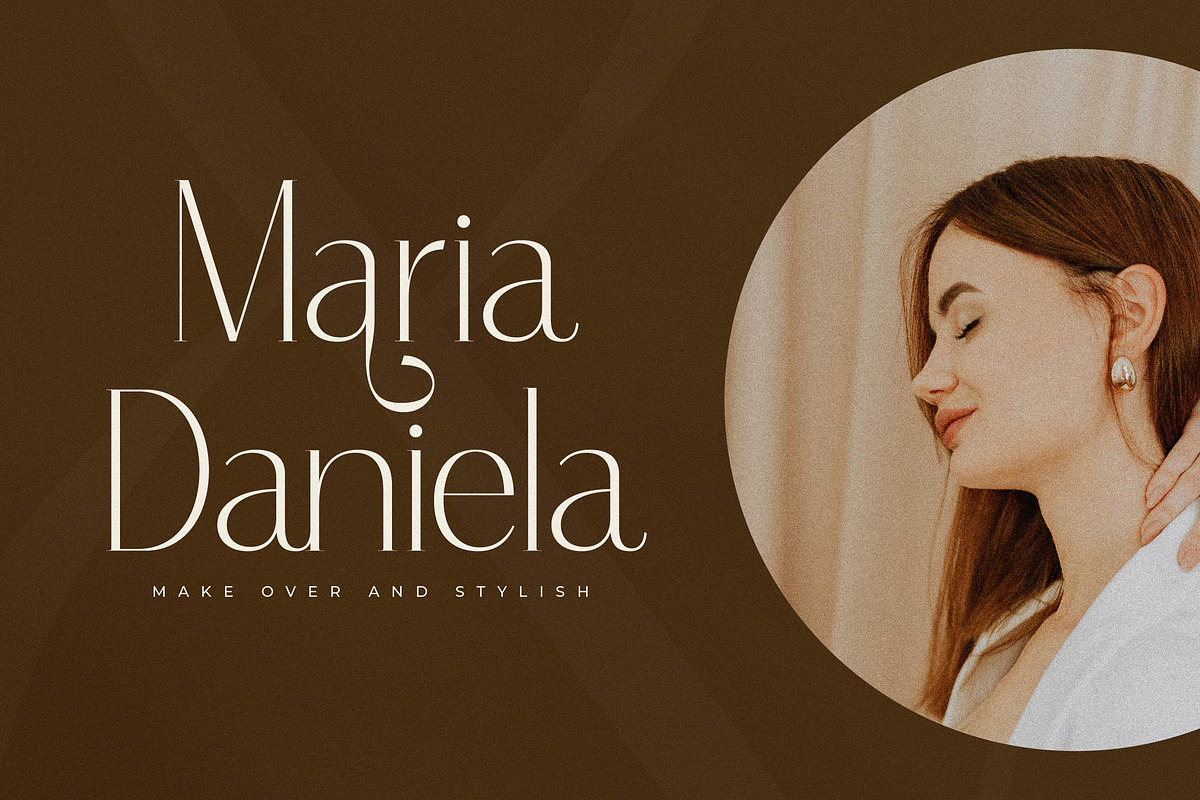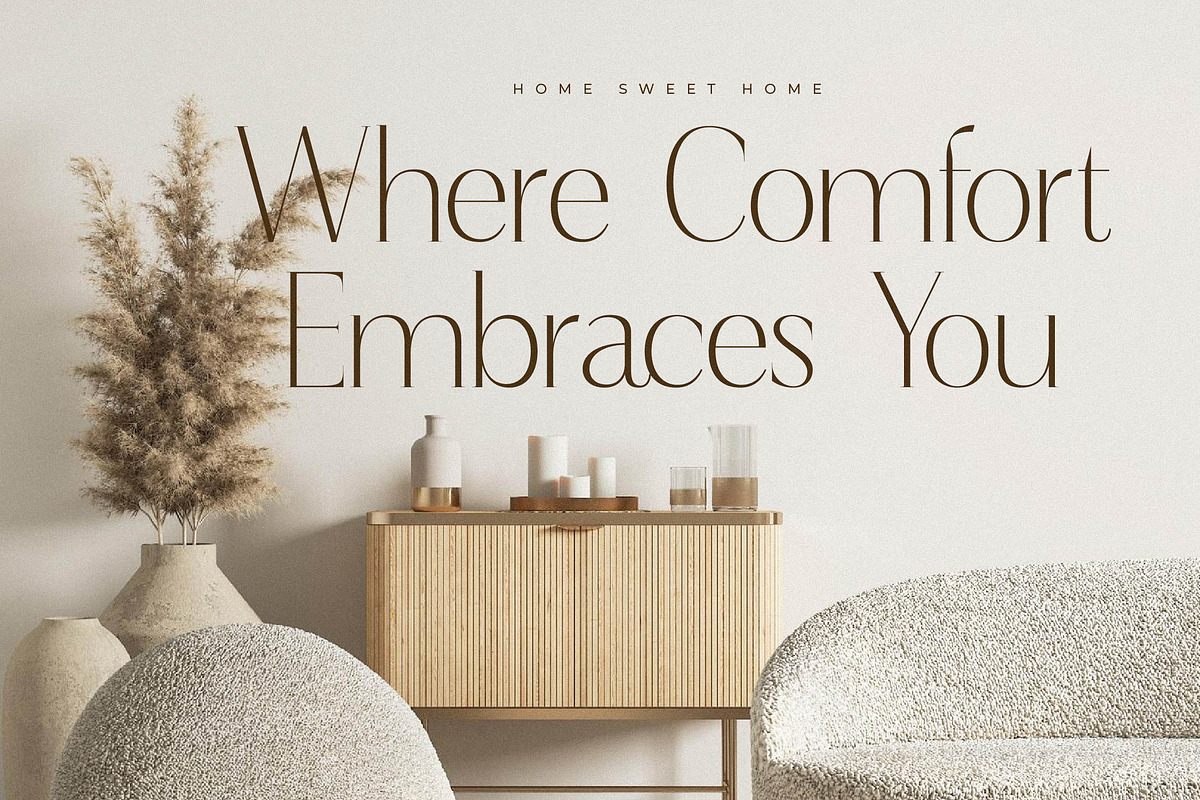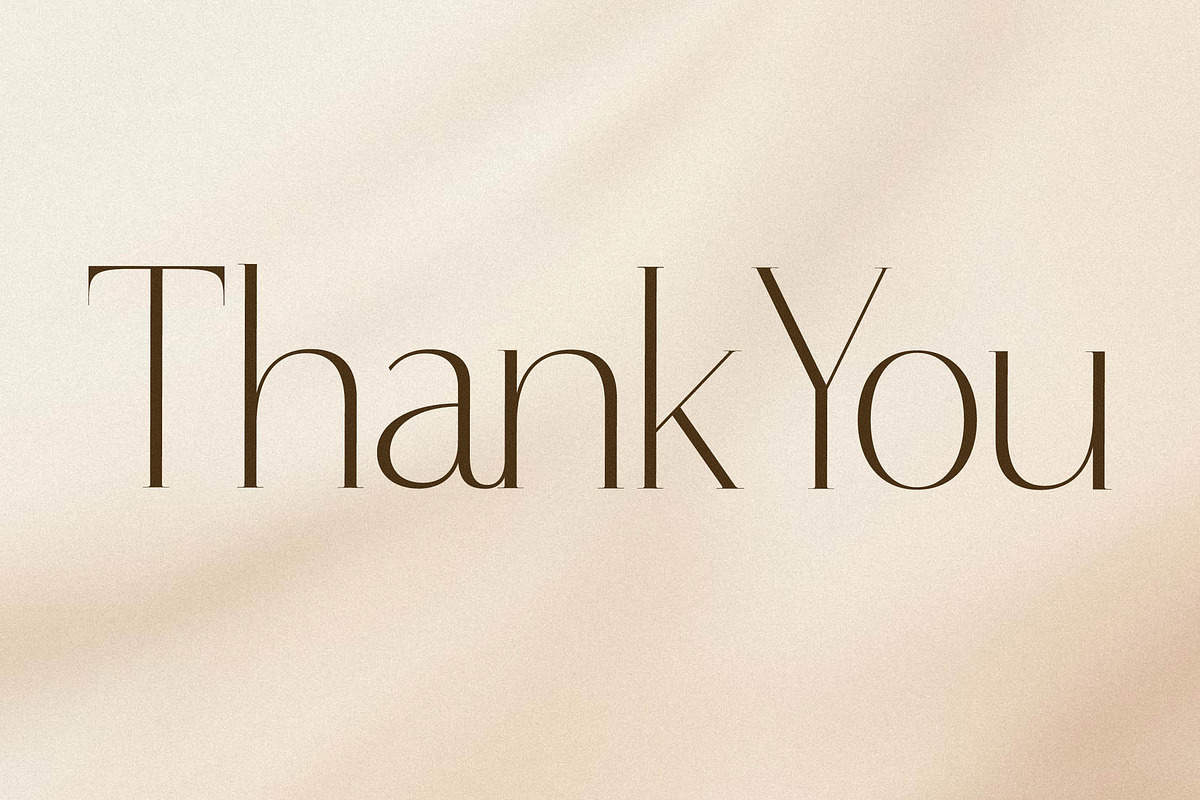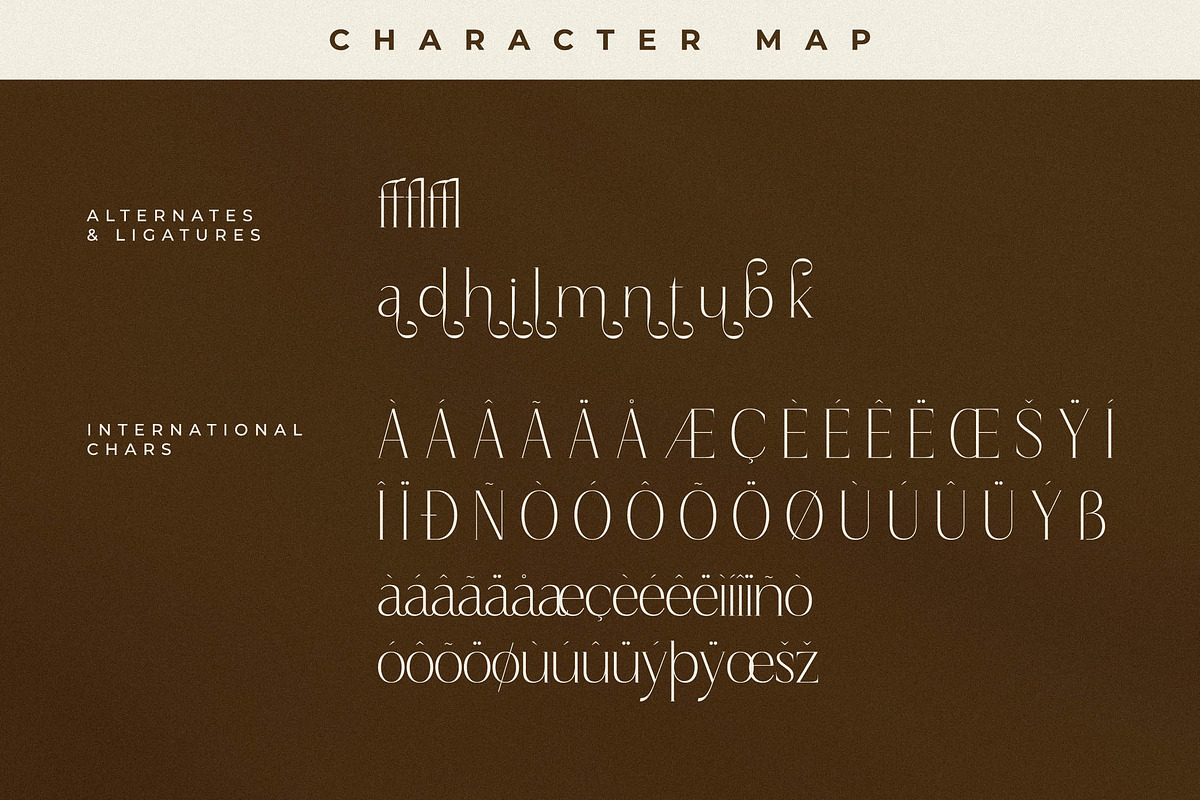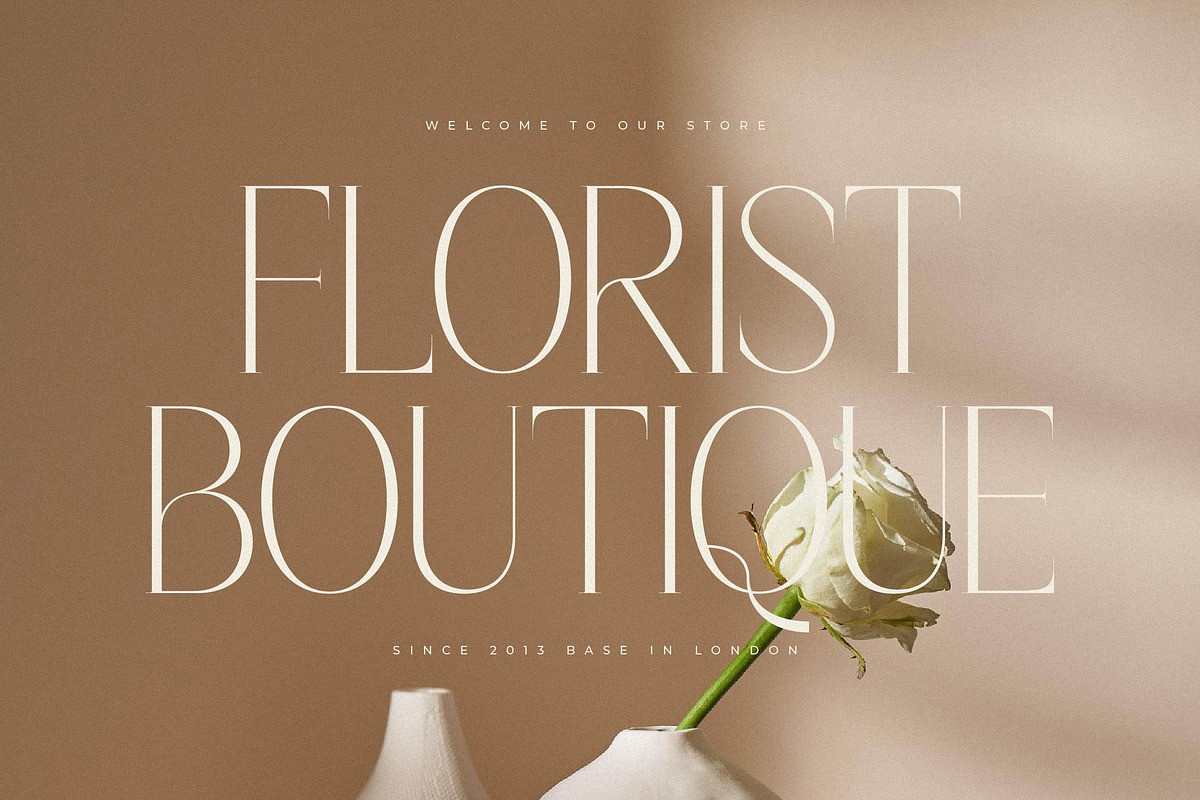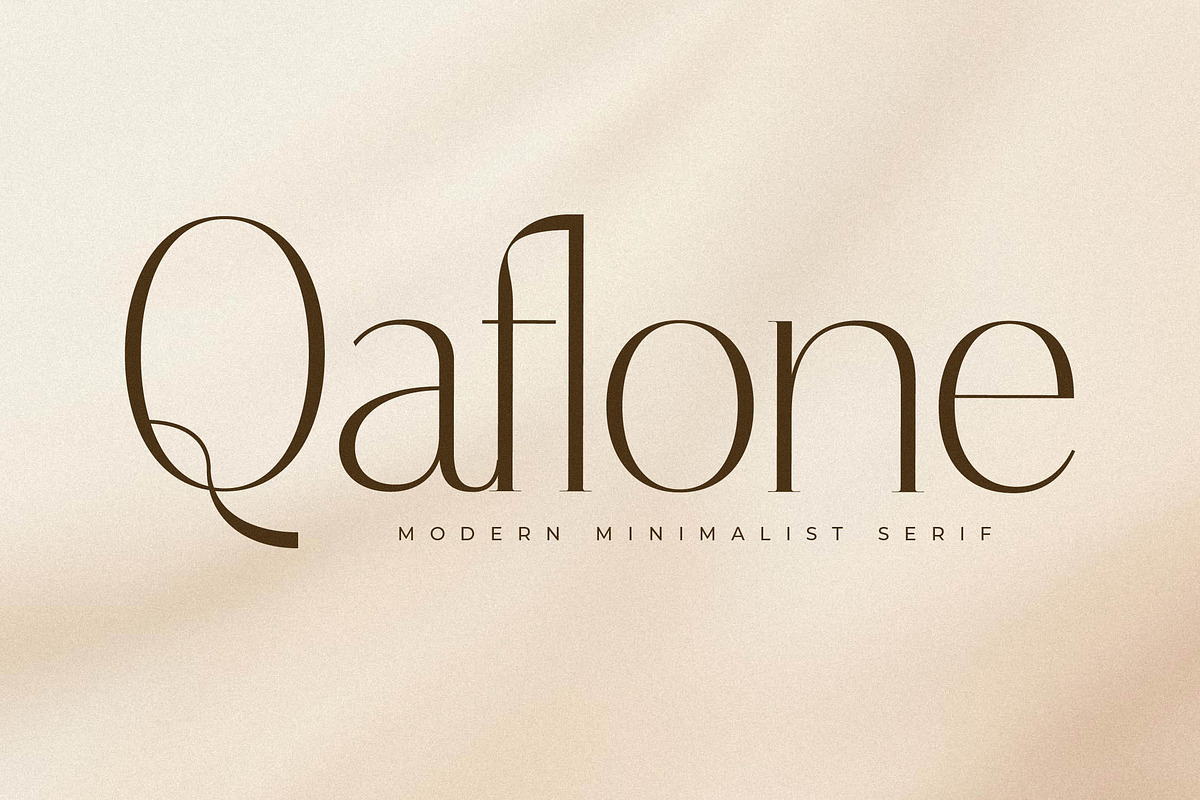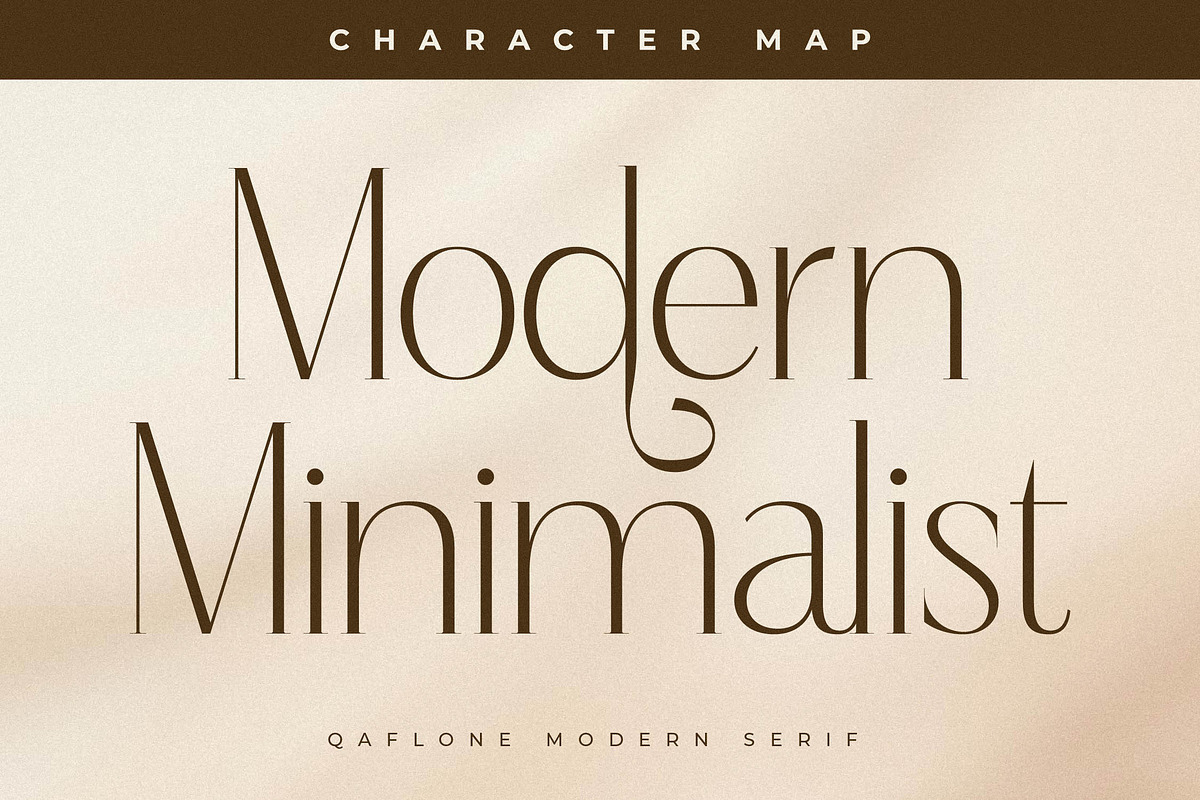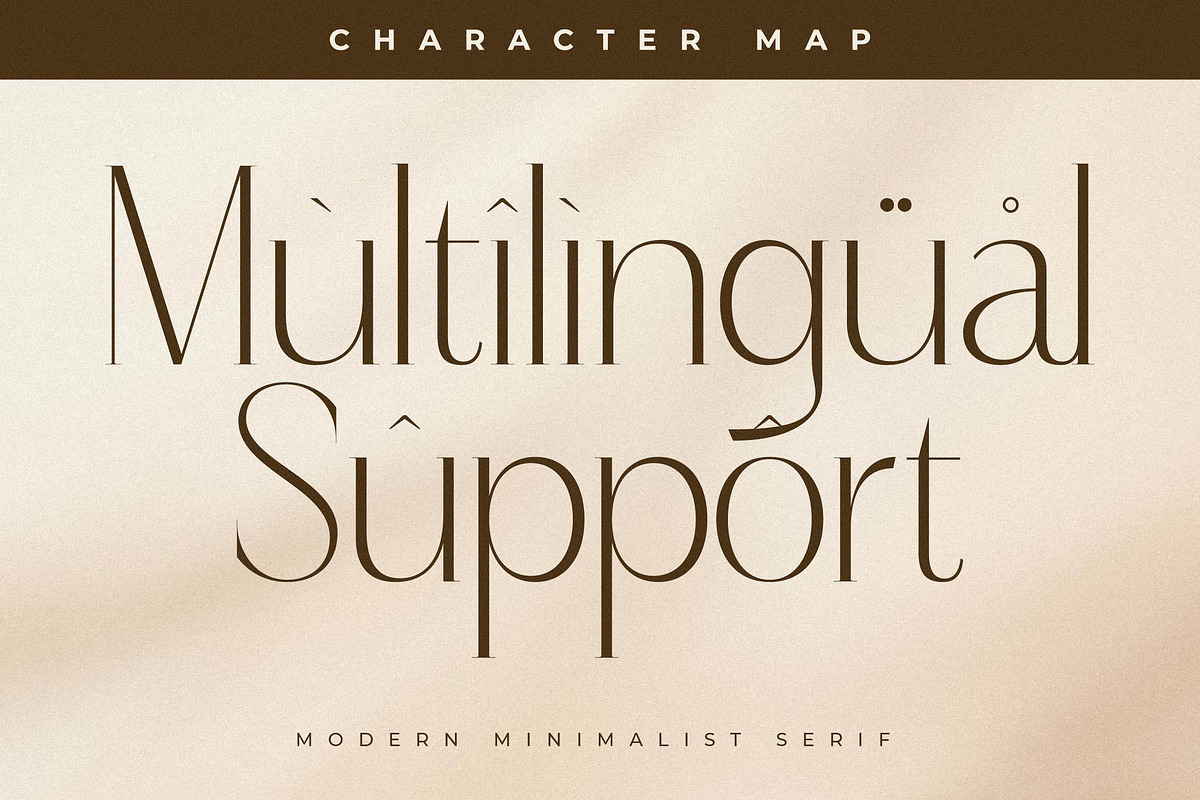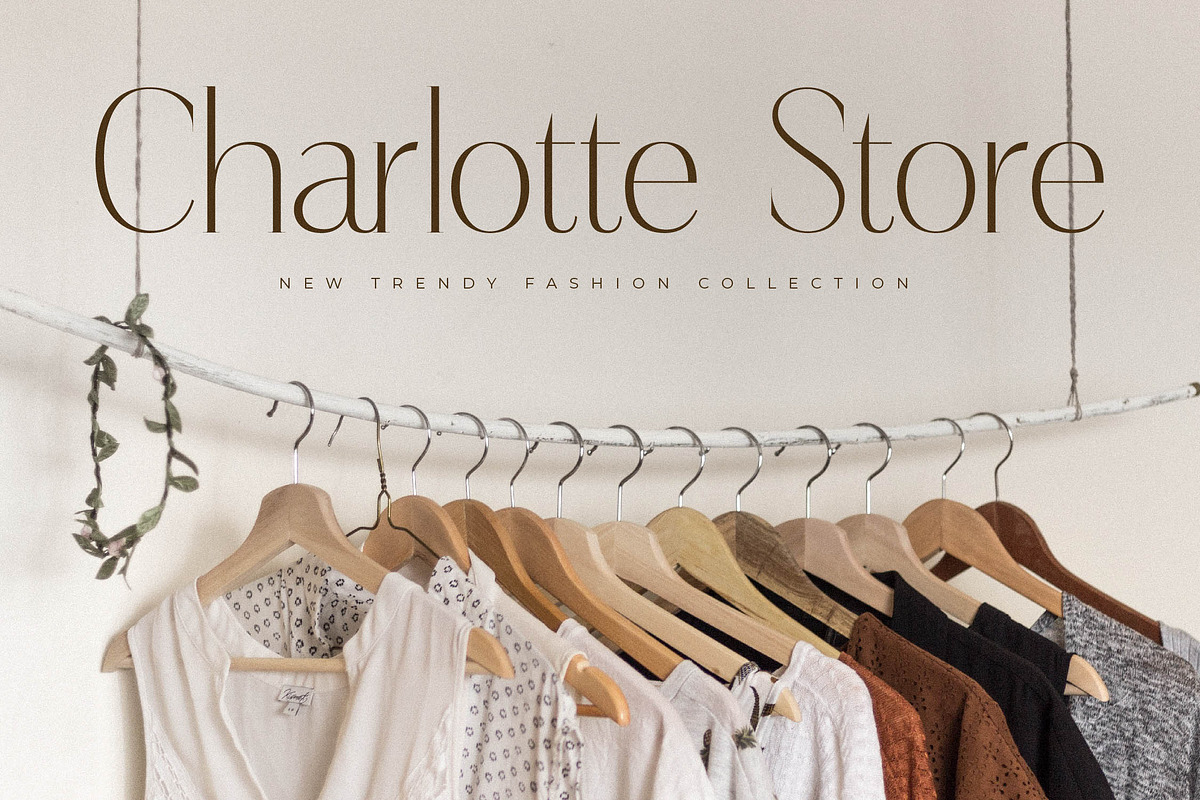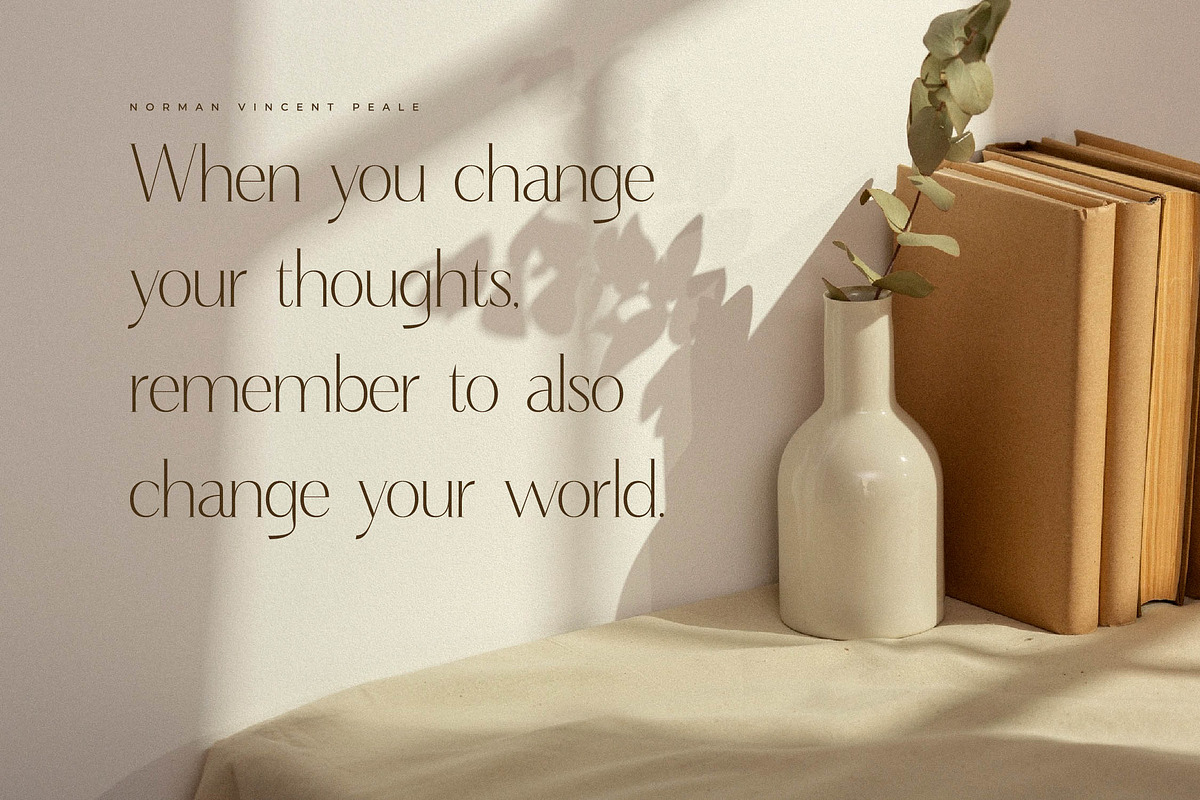
Qaflone Modern Minimalist Serif
Proudly present Qaflone Typeface , created by Storytype, A serif modern and classic typeface that has own unique style & modern look. This typeface is perfect for an elegant & luxury logo, book or movie title design, fashion brand, magazine, clothes, lettering, quotes, and so much more.